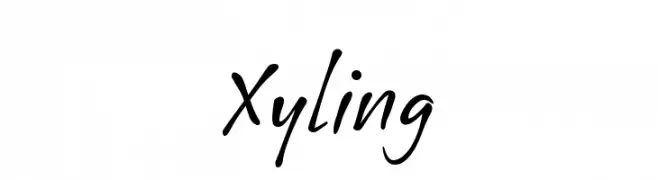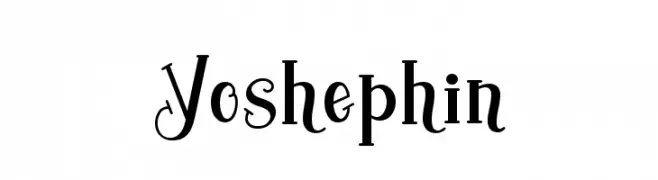
( 7NTypes - Situjuh Nazara - 7ntypes.com )
A casual, handwritten font with smooth, flowing strokes.
( 7NTypes - Situjuh Nazara - 7ntypes.com )
A playful and elegant script font with decorative swirls and a handwritten touch.
( Anja Pöchhacker )
A bold, italic script font with a flowing, cursive style.
( 7NTypes - Situjuh Nazara - 7ntypes.com )
A whimsical and playful font with elegant curves and sharp edges.
( Chequered Ink - chequered.ink/ )
A bold, geometric font with arrow-like extensions for a dynamic look.
( Alit Design - Alit Suarnegara - www.alitdesign.net )
A bold, decorative font with vintage and ornate detailing.
( Chequered Ink - chequered.ink/ )
A bold, geometric font with a strong, angular design.
( Alit Design - Alit Suarnegara - www.alitdesign.net )
A bold, decorative font with a vintage, elegant style.
( 7NTypes - Situjuh Nazara - 7ntypes.com )
A playful, handwritten font with a light, airy feel and rounded edges.
( 7NTypes - Situjuh Nazara - 7ntypes.com )
A smooth, flowing script font with an elegant italic style.